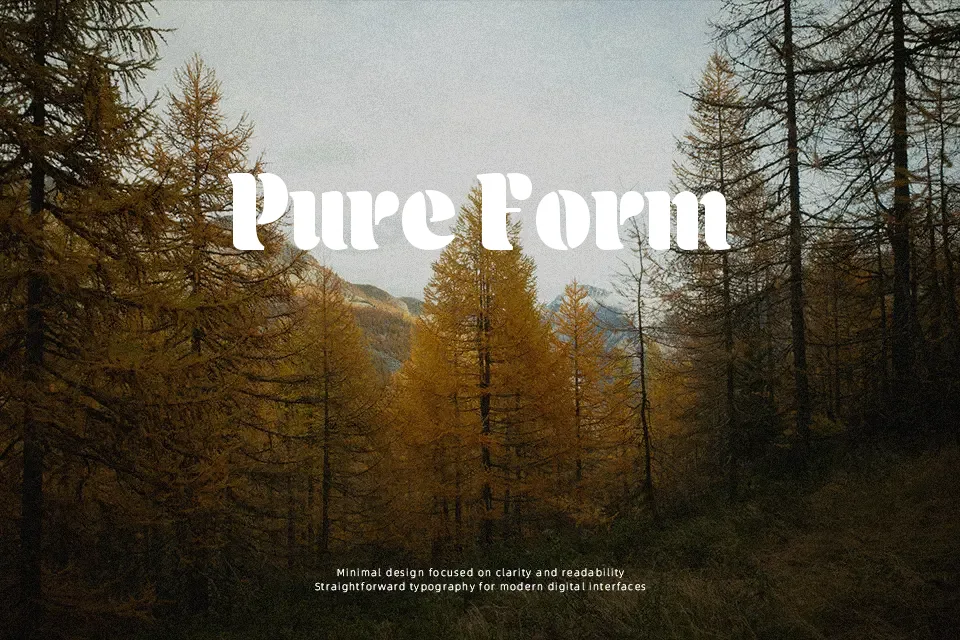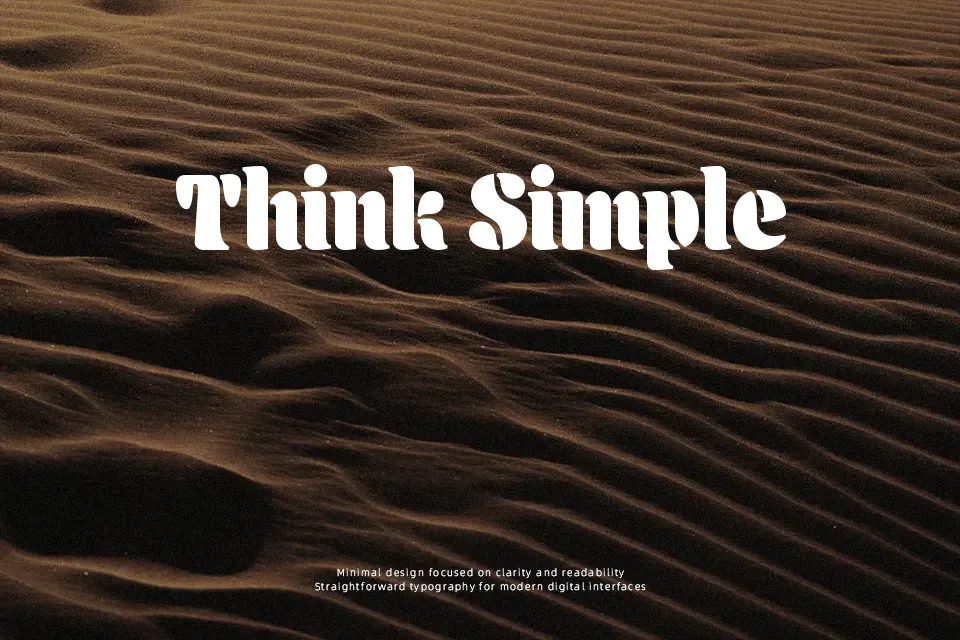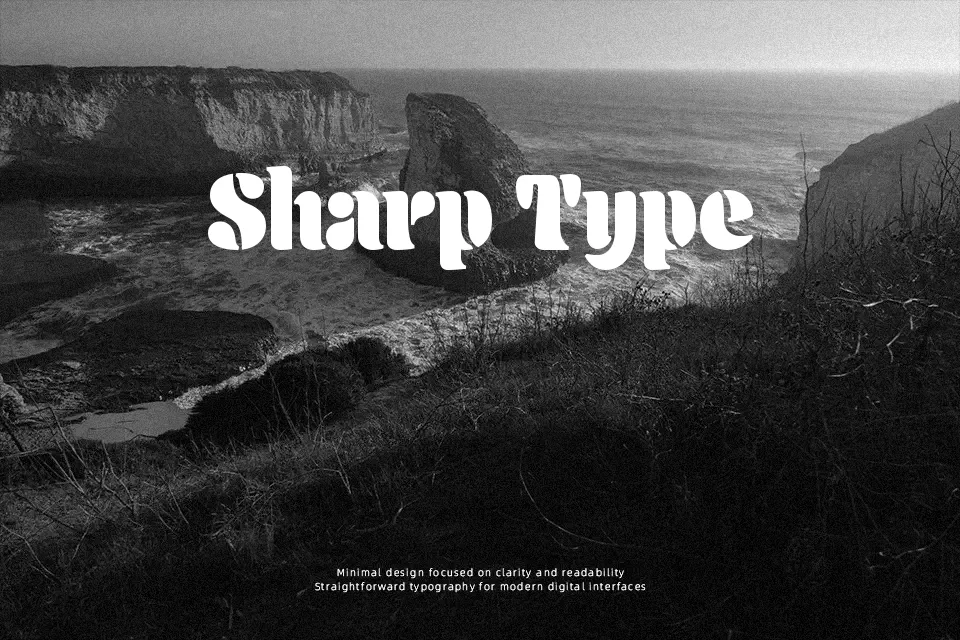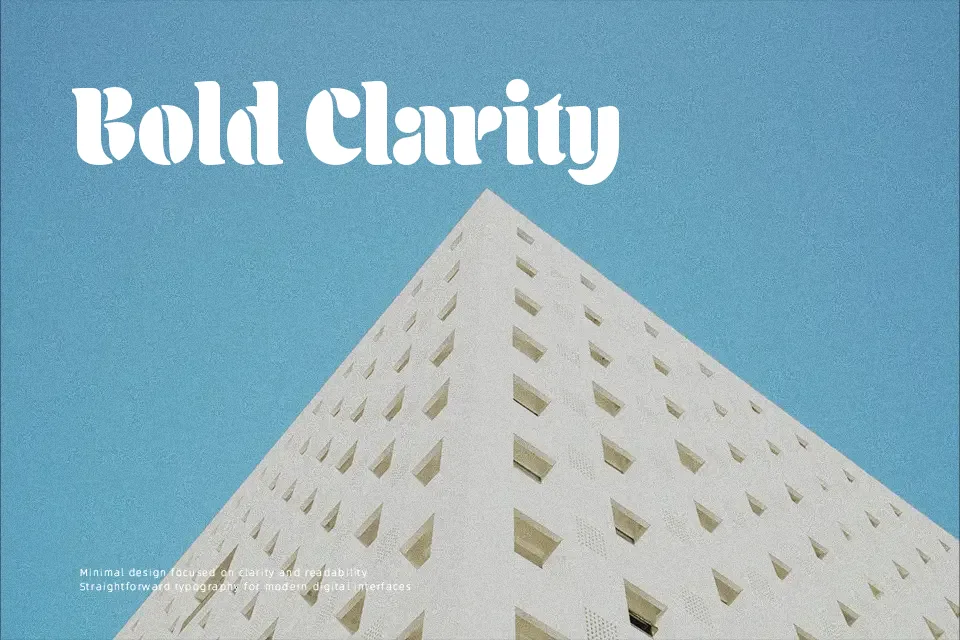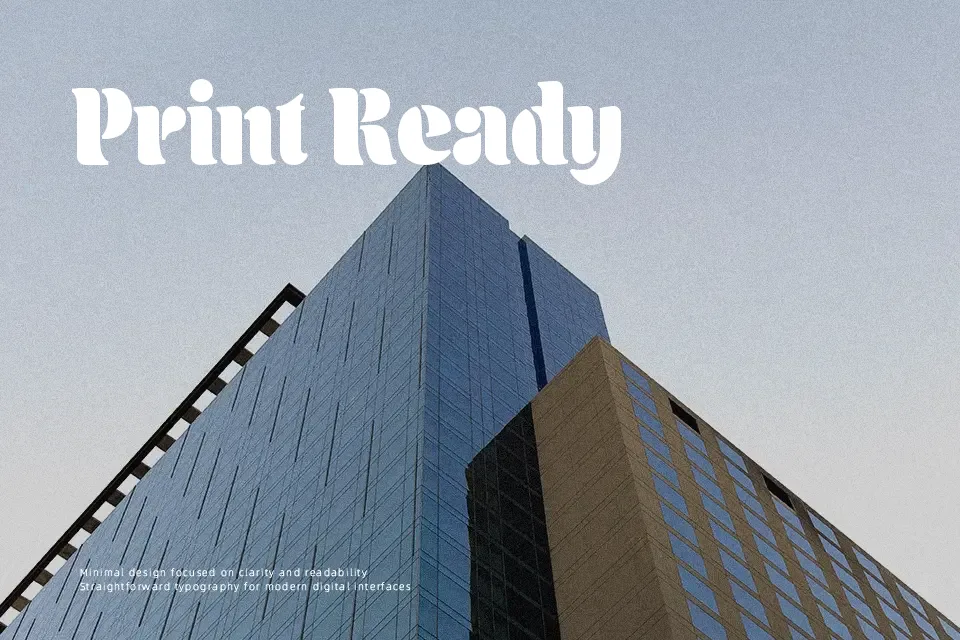
Aromatron Font
Designed by Adam Jagosz
Built on stencil principles, Aromatron carries an even, dark color across its letterforms — thick strokes distributed with precision, creating a steady typographic rhythm that feels both retro and composed. The construction draws from organic shapes, giving capitals a swash-ready personality while keeping body weight balanced. It holds up well at large display sizes, especially in poster headlines, music album covers, or craft packaging where character counts more than neutrality. That said, its decorative stencil cuts make it a poor fit for small-size text or dense UI copy — legibility drops noticeably below 14pt. For designers who need something between a slab and a groovy display face, Aromatron delivers without overselling itself.
Best For:- Retro poster and editorial headlines
– Music or vinyl-inspired branding
– Craft packaging and artisan product labels
– Social media graphics with a vintage editorial tone
Not Ideal For:- Body text or long-form reading at small sizes
– Corporate reports or formal business documents
– UI interfaces requiring neutral, high-legibility type
– Minimalist design systems
Perfect for advertising, branding, and headline, with a bold and decorative style.